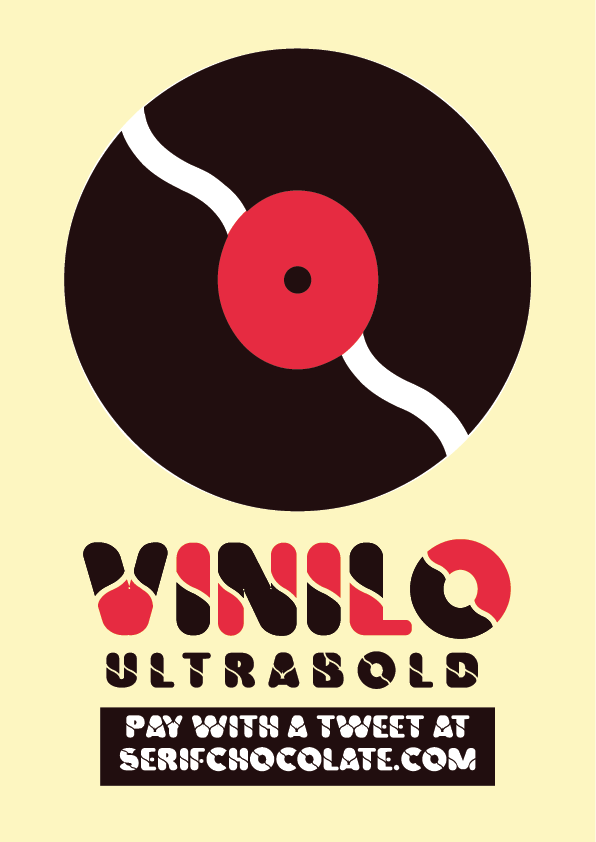
Vinilo Display Font
This is a unique font display. Introducing Vinilo Display Font! A free font is designed and shared by serifchocolate. A sans serif typeface, bold, rounded and capable of being applied as a stencil, Vinyl is all that a contemporary and youthful typography can be, ideal for land and beach party posters, concerts, urban art exhibitions oo Anything else that a curved line that traverses an ultrabold typography redondeda can insinuate.